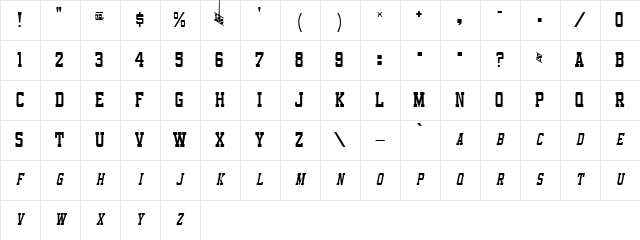
Complete Funland Park Midway JL Regular glyph index. Displaying only characters natively supported by Funland Park Midway JL Regular font.
Funland Park Midway JL has an approachable, lighthearted character - its loose, expressive forms are well-suited to children's content, casual branding, and fun-first design.
Font Pairing: Pairs well with a rounded or humanist sans for body copy, maintaining the friendly tone without relying on Funland Park Midway JL to carry extended reading.
Pro Tip: Use Funland Park Midway JL at larger display sizes where its expressive character can land. Pair with a clean, simple sans for body copy to maintain readability.